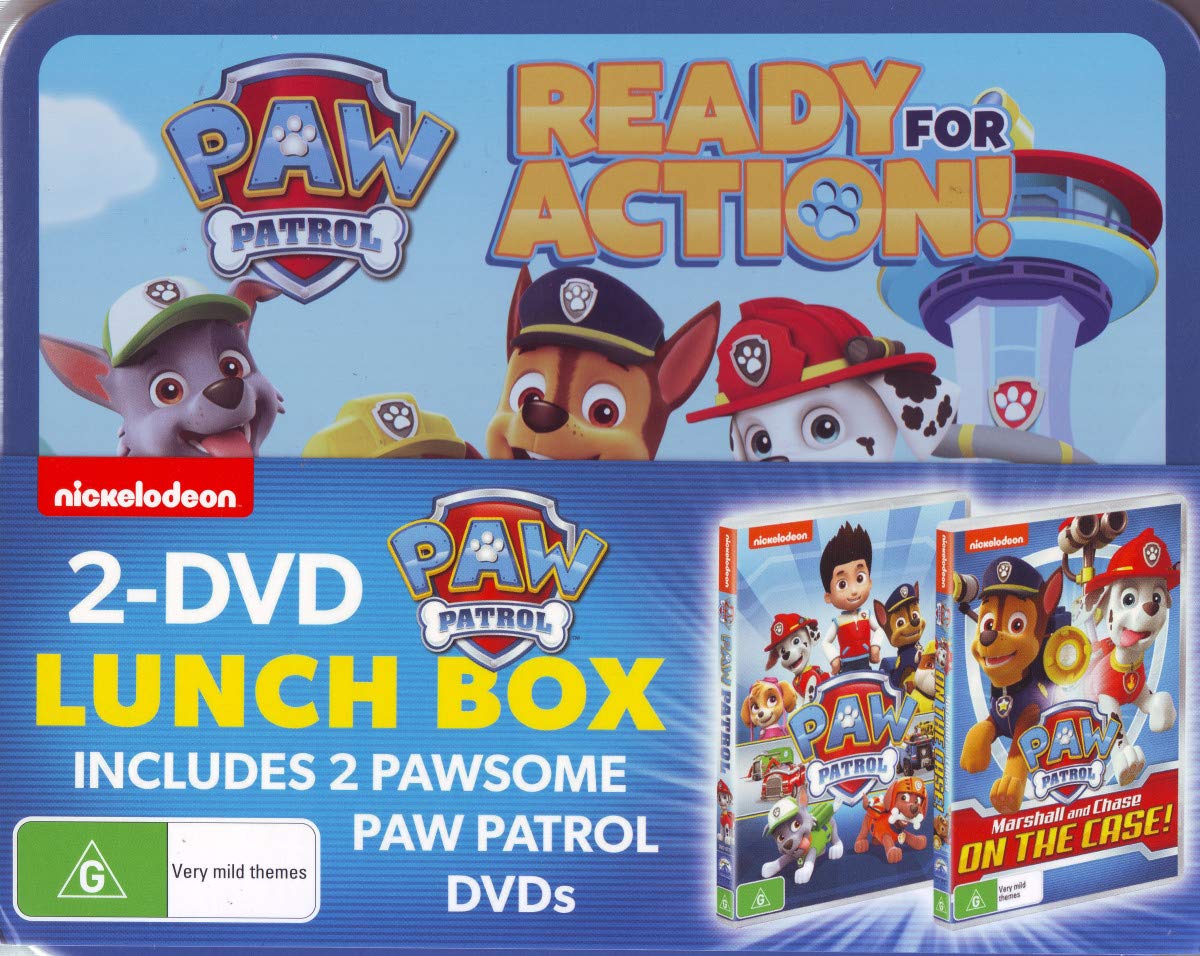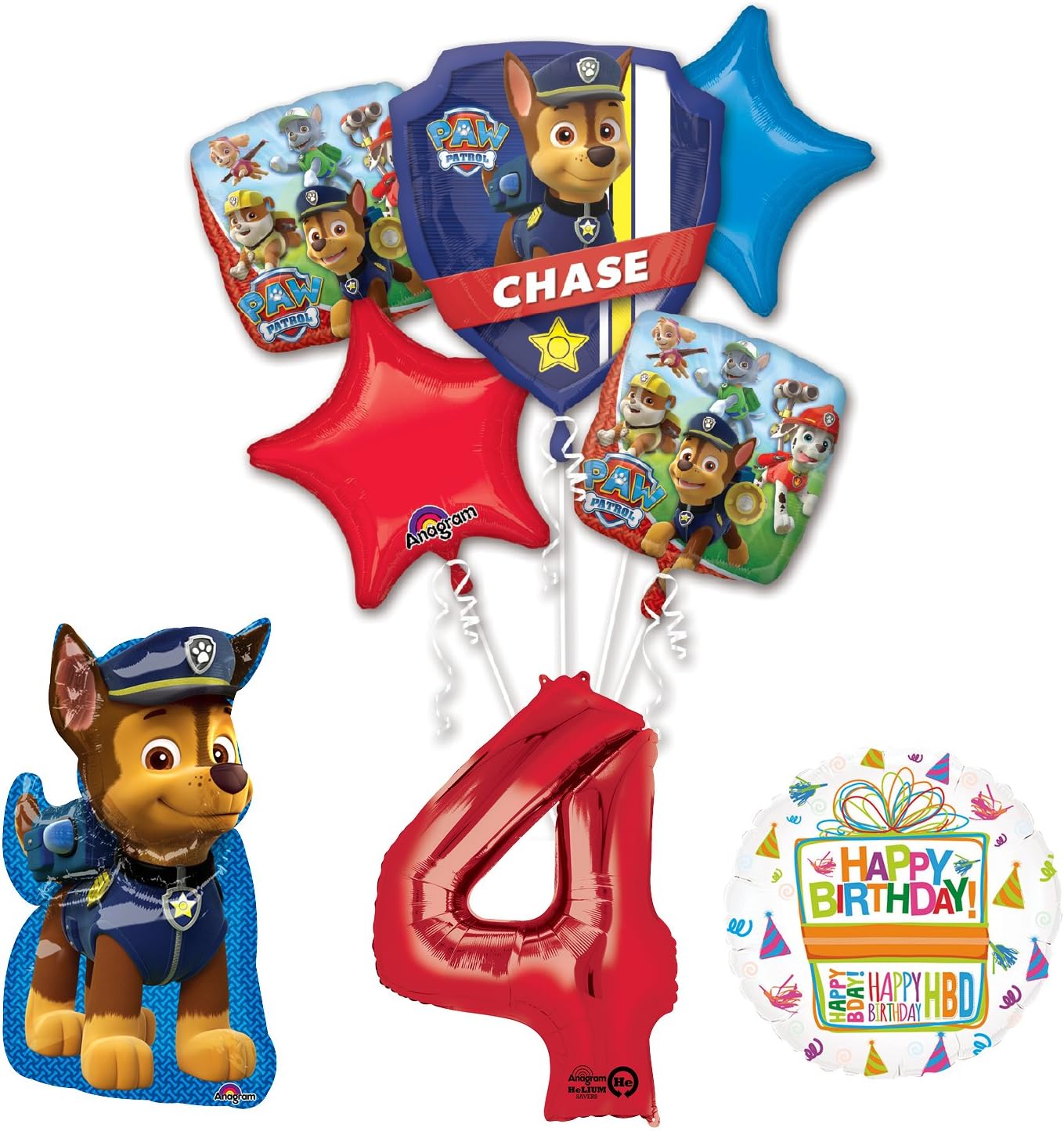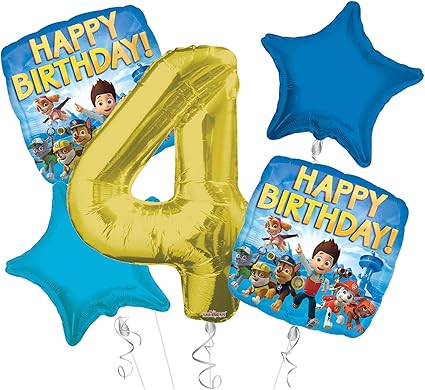
Font Paw Patrol Number 4
You guessed it blue.
Font paw patrol number 4. We have 4 free paws fonts to offer for direct downloading · 1001 Fonts is your favorite site for free fonts since 01. Paw Patrol font is the comedian font own family and Paw Patrol is the animated TV collection Keith Chapman becomes made this film Movie logo includes two fonts Comic and chen Infusing lovely typography into your design is, absolutely, one of the most powerful methods to communicate as a corporation. Paw Patrol Number 4 Font Clipart Pinclipart Alphabet Paw Patrol Letter S Letters Hd Png Kindpng Alphabet Letter Patrol Font Number Paw Transpa Background Png Clipart Hiclipart Blue And Yellow X Letter Patrol Alphabet Font Others Electric Symbol Paw Png Pngwing.
These Paw Patrol font features make this stylish font family differ from others Paw Patrol font family categorized in Movie, SlabSerif fonts This Serif font family is designed for Paw Patrol Covers This free font family can have multiple kinds of style, numerals as well as lining and text figures with highly legible characters Paw Patrol. Download Free Paw Patrol Number 4 2 Clipart and PNG Transparent background for web, blog, projects, school, powerpoint Paw Patrol Number 4 2 Cliparts. PAW Patrol is a Canadian animated television series that was created by Keith Chapman The series first aired on August 12, 13, on Nickelodeon in the United States and in Canada on TVOKids on September 2, 13 The Paw Patrol logo in the poster has two different fonts, the “PAW” part features a comic style font, which is probably custom designed.
The Paw Patrol font family is based on an animated television show that was created by Keith Chapman This tv series was first aired in Canada and in America during 13 This free font family can have multiple kinds of style, numerals as well as lining and text figures.